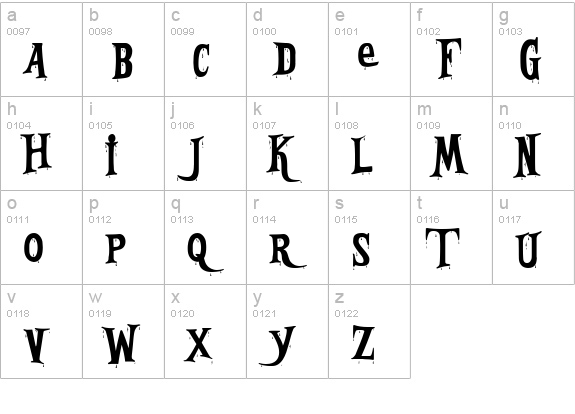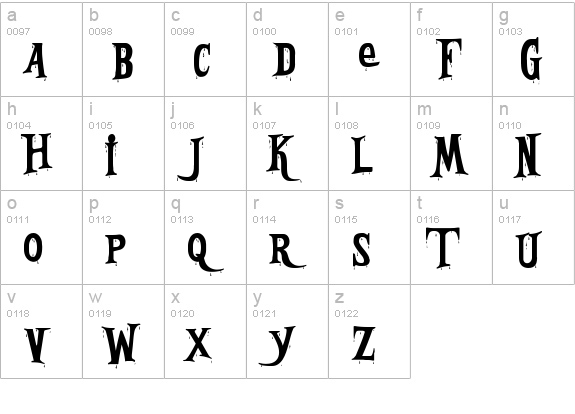
Bleeding Freaks Demo Font Details
Bleeding Freaks Demo font is a captivating and edgy typeface that is sure to make a bold statement. With its unique and intricate design, this font exudes a sense of mystery and intrigue, perfect for adding a touch of darkness to any project. The letters of Bleeding Freaks Demo font appear as if they are bleeding, creating a visually striking and eye-catching effect. This font is ideal for designs that aim to be unconventional and unconventional, making it a great choice for posters, album covers, and other creative endeavors. What sets Bleeding Freaks Demo font apart is not only its distinctive design, but also the fact that it is available for free. Yes, you read that right – this font can be freely downloaded at FontsMarket.com. This means that you can add a touch of uniqueness to your designs without breaking the bank. Whether you're a graphic designer, a creative professional, or simply someone who appreciates the power of fonts, Bleeding Freaks Demo font is a must-have. Its captivating and daring style will surely leave a lasting impression on your audience. So, why wait? Download Bleeding Freaks Demo font today and unleash your creativity with this one-of-a-kind typeface. Remember, it's free and available for download at FontsMarket.com. Don't miss out on this opportunity to make your designs stand out from the crowd.